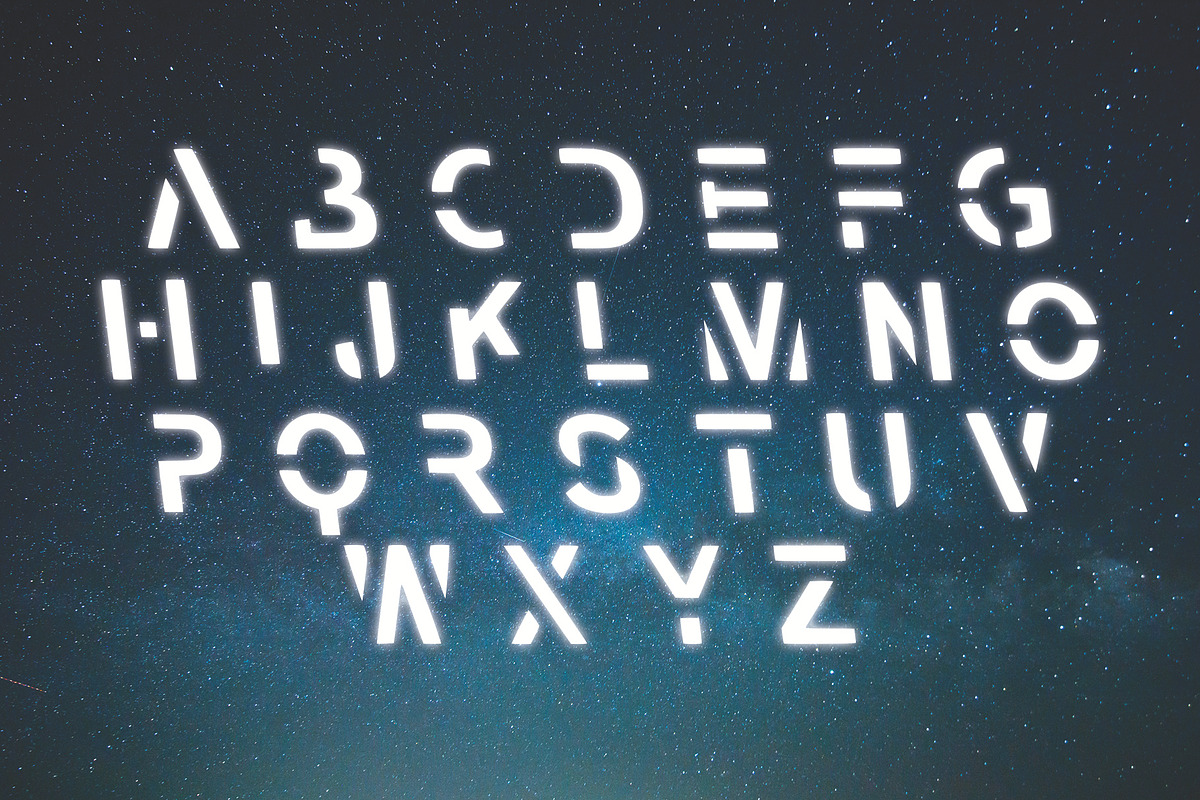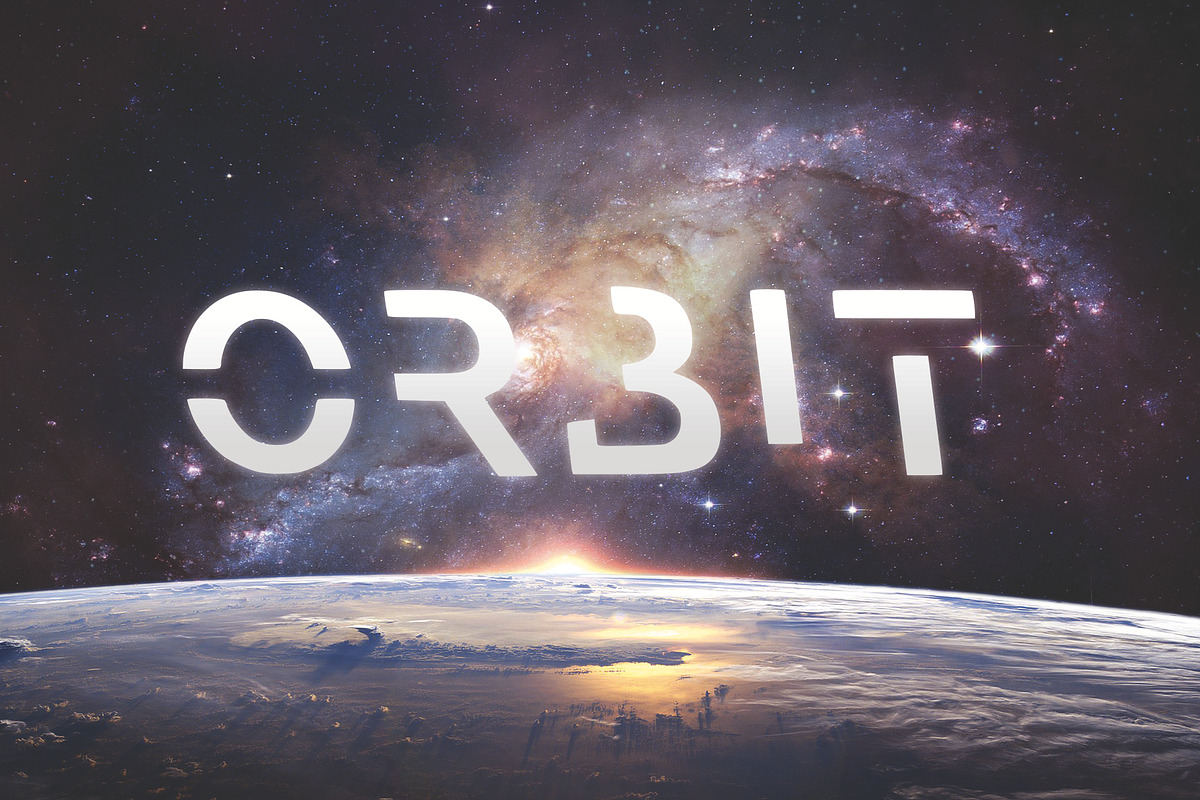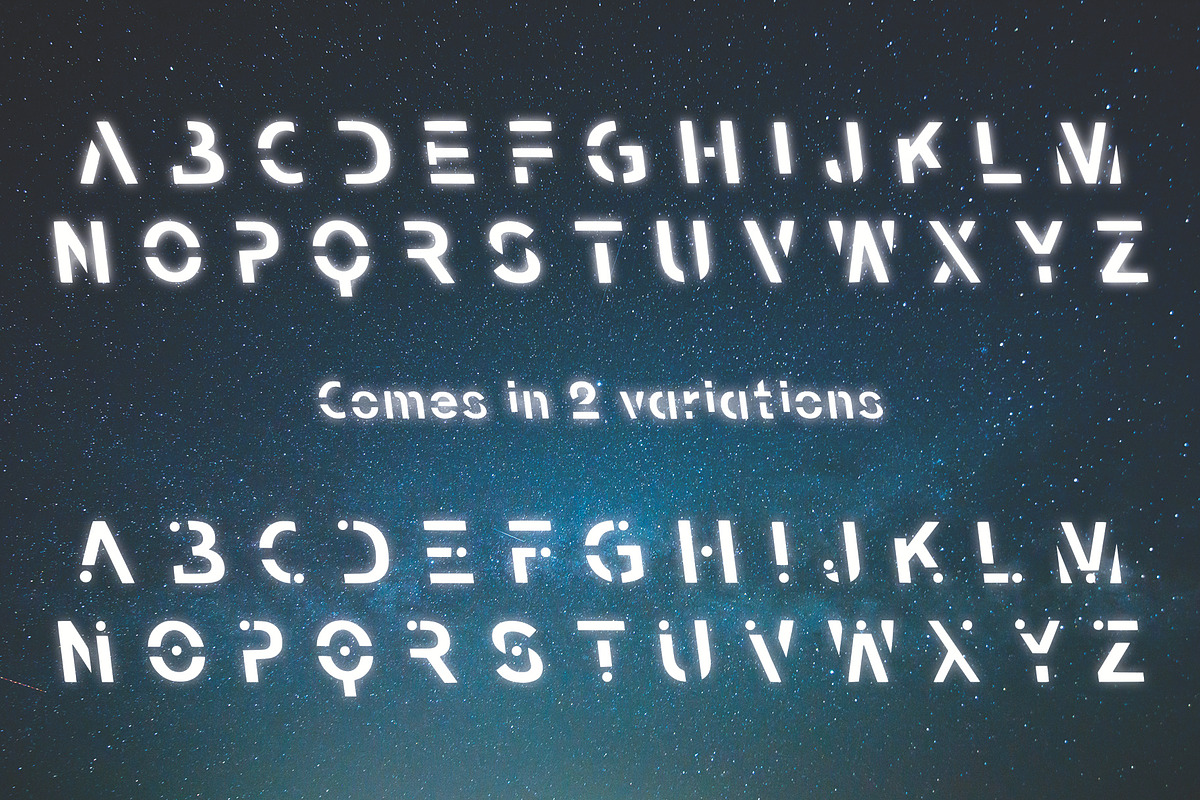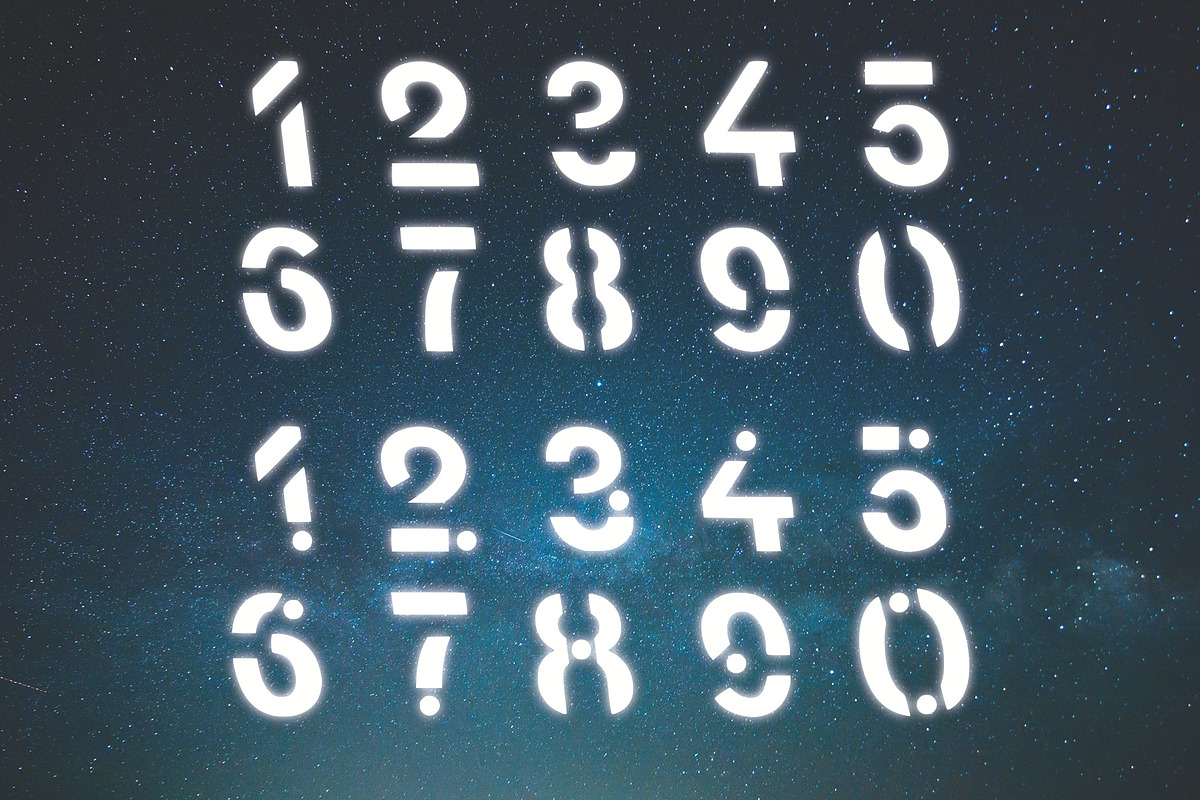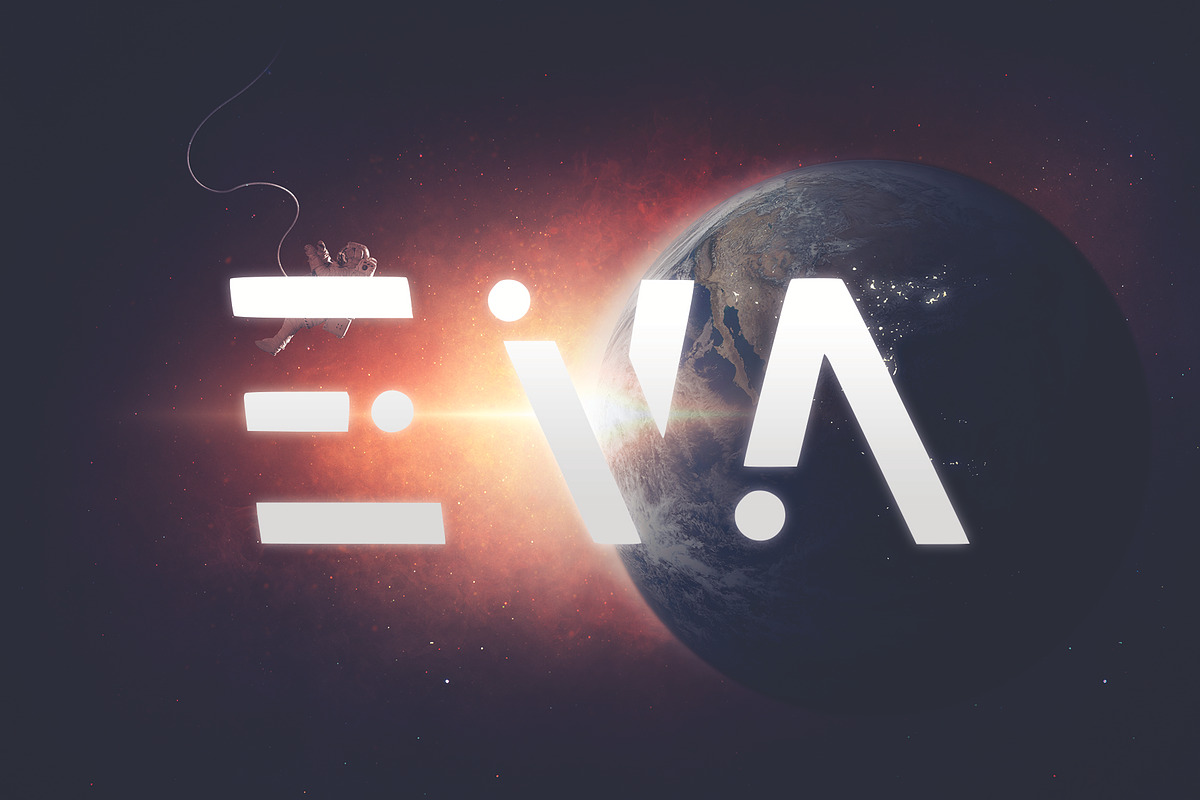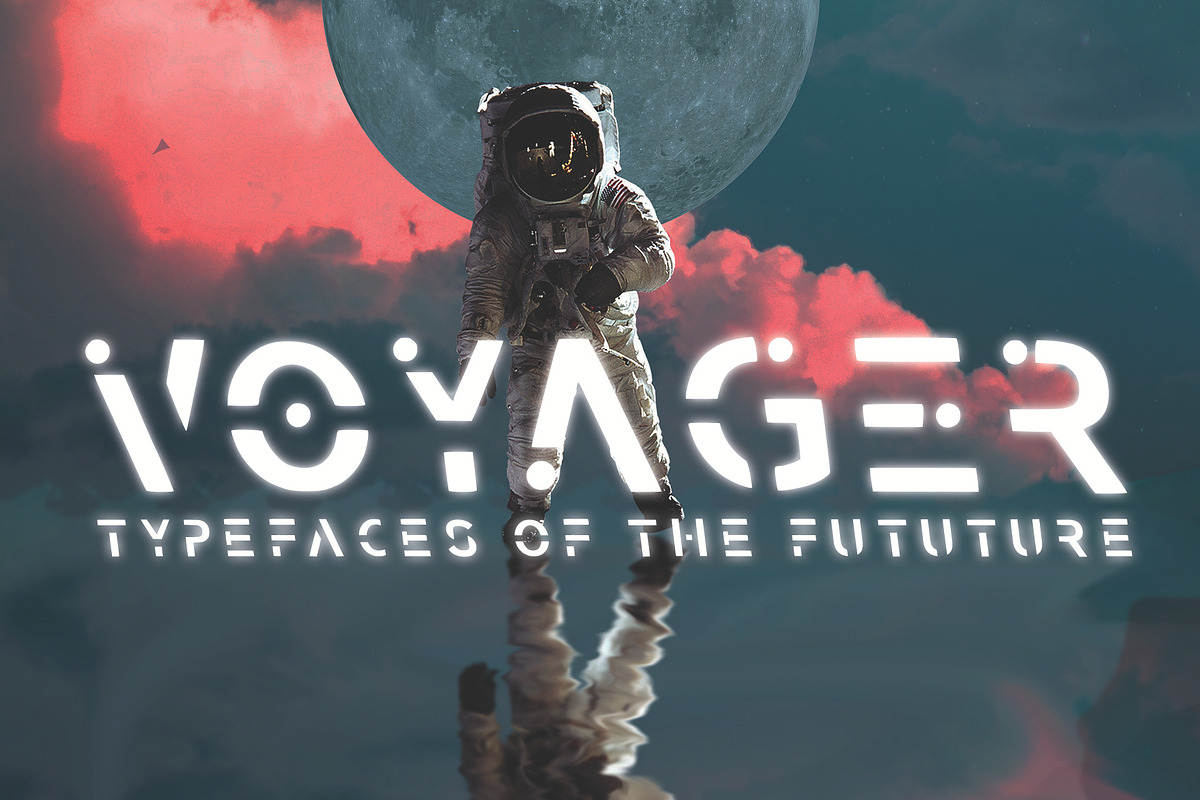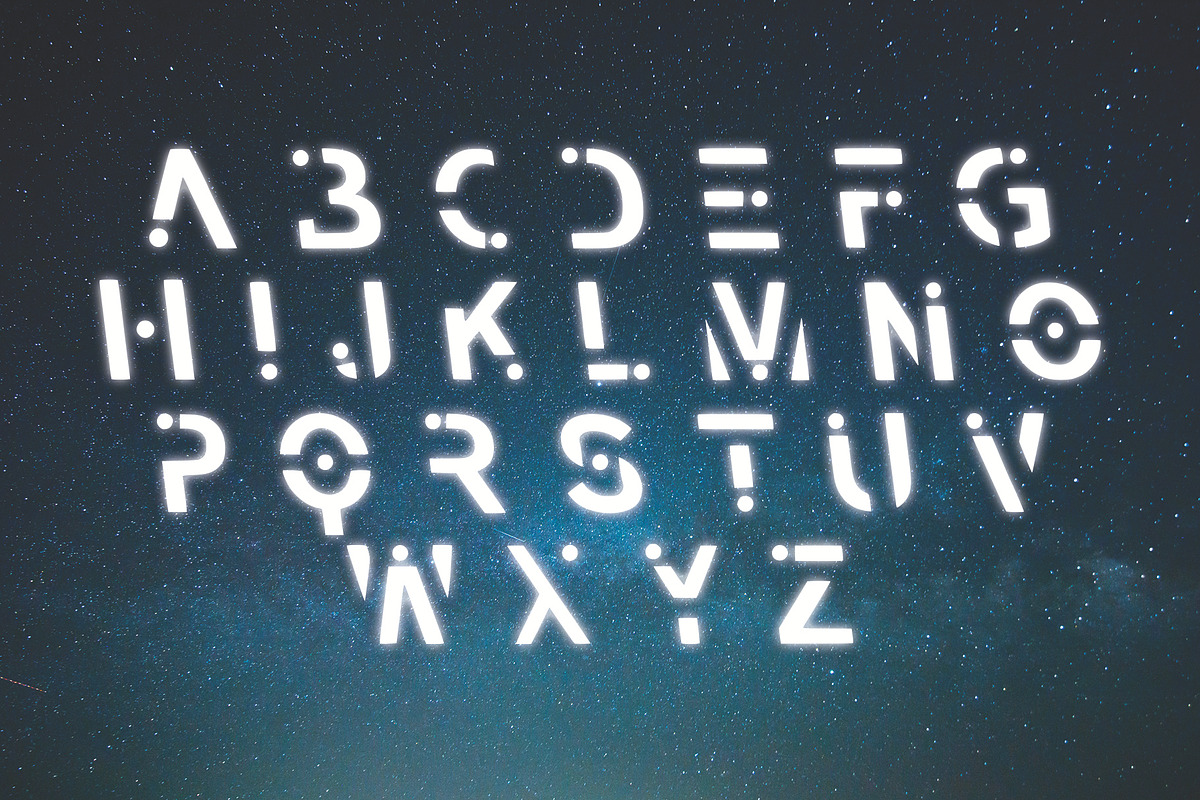
VOYAGER - Typefaces of the Future
A futuristic font set. Voyager is an outstanding design that has been passionately crafted with a futuristic vibe. Contains 2 unique variations; upper and lowercase letters as well as numbers.
- Contains 2 unique variations; upper and lowercase letters as well as numbers.
- Voyager Regular
- Voyager 2 Regular